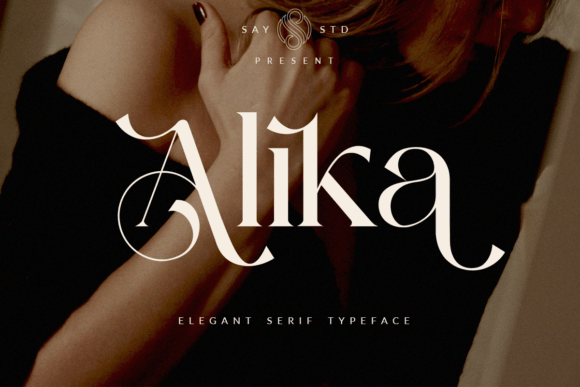
Introducing Alika Font, the perfect addition to your typography arsenal for creating elegant monograms. Developed by SayStudio, this beautiful serif font exudes refinement, style, and grace with its clean lines and subtle serifs, making it a timeless classic.
Alika Font is the epitome of sophistication and understated luxury, ideal for high-end branding and editorial design projects that require a touch of prestige. This font family is PUA encoded, which means you have access to all its delightful glyphs and swashes effortlessly, adding an extra level of creativity to your designs.
With Alika Font, you can convey emotions of sophistication, class, and exclusivity to your audience. The versatile and chic design is perfect for creating stunning logos, invitations, monograms, and more, giving you endless creative possibilities.
Whether you're a professional graphic designer or an amateur enthusiast, Alika Font is an excellent addition to your collection. Say goodbye to boring and predictable fonts and embrace a timeless classic that will elevate your design game.